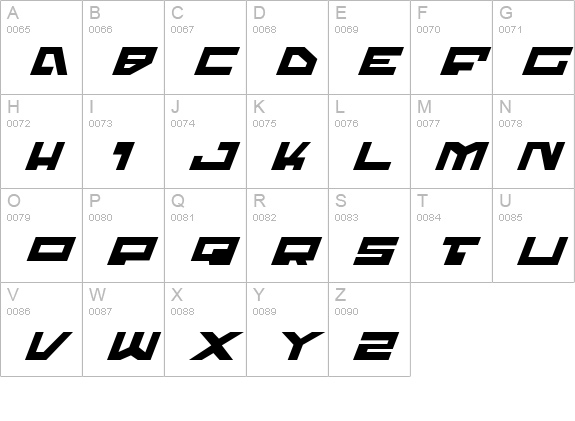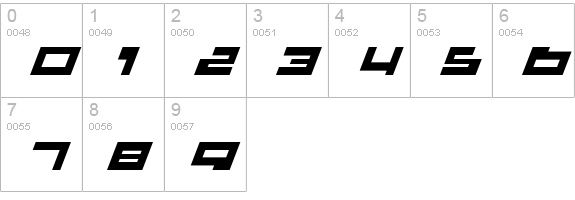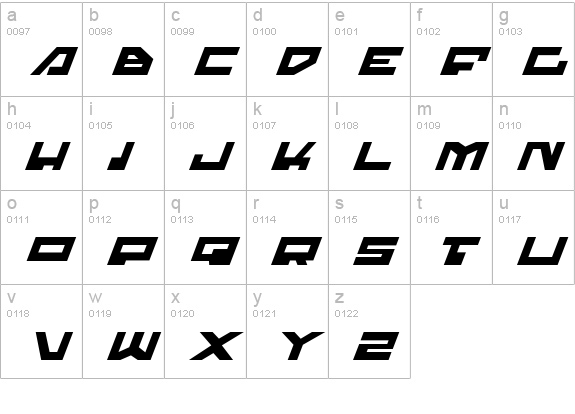
Trajia Expanded Italic is a distinctive, extended-width, italic variant in the Trajia typeface family \xE2\x80\x94 well suited to design and typography projects.
Trajia Expanded Italic font is a beautifully designed typeface that exudes elegance and sophistication. Its sleek and modern appearance makes it perfect for adding a touch of style to any project. The slanted italic style adds a sense of dynamism and flair to the text, making it stand out with a sense of movement and energy. This font is versatile and can be used for a wide range of design projects, from branding and advertising to editorial and web design. Its expanded form gives it a unique look that sets it apart from other fonts, making it a great choice for creating eye-catching headlines and titles. Best of all, Trajia Expanded Italic font is available for free download at FontsMarket.com. This means you can easily access this stunning typeface and use it in your projects without any cost. Don't miss out on the opportunity to enhance your designs with this elegant and stylish font today!